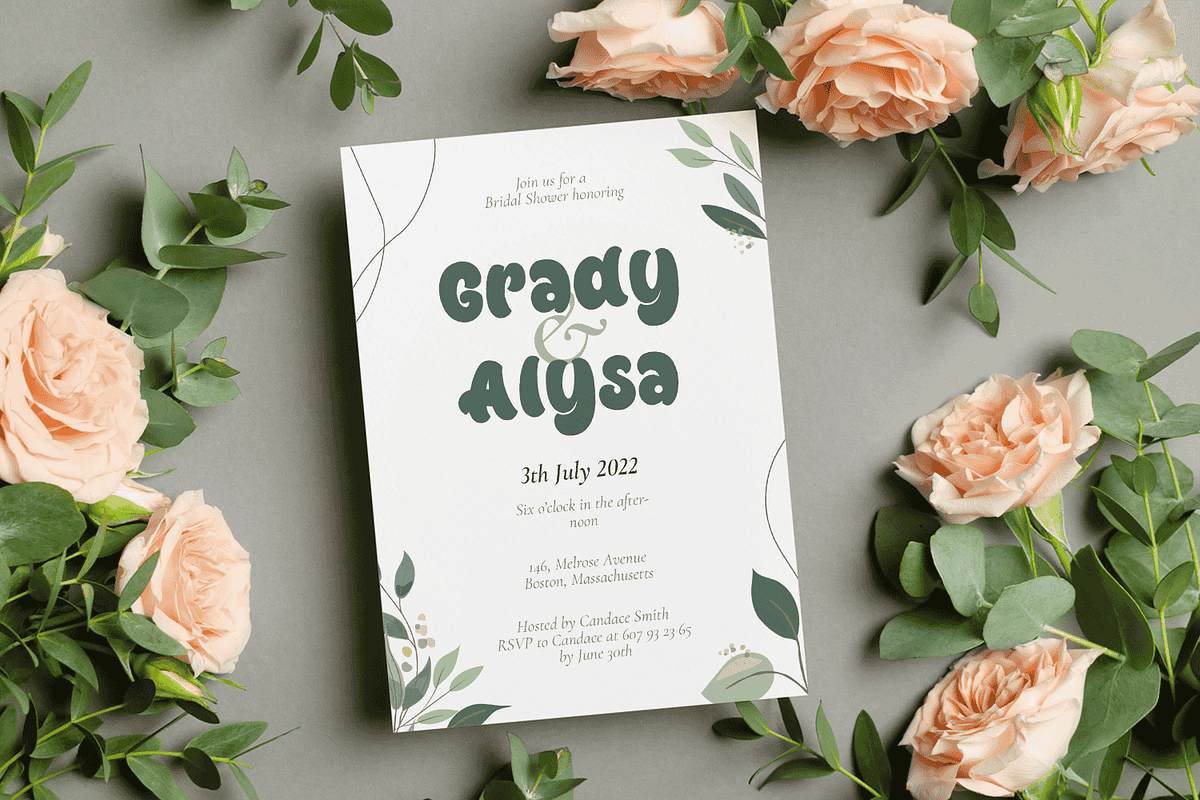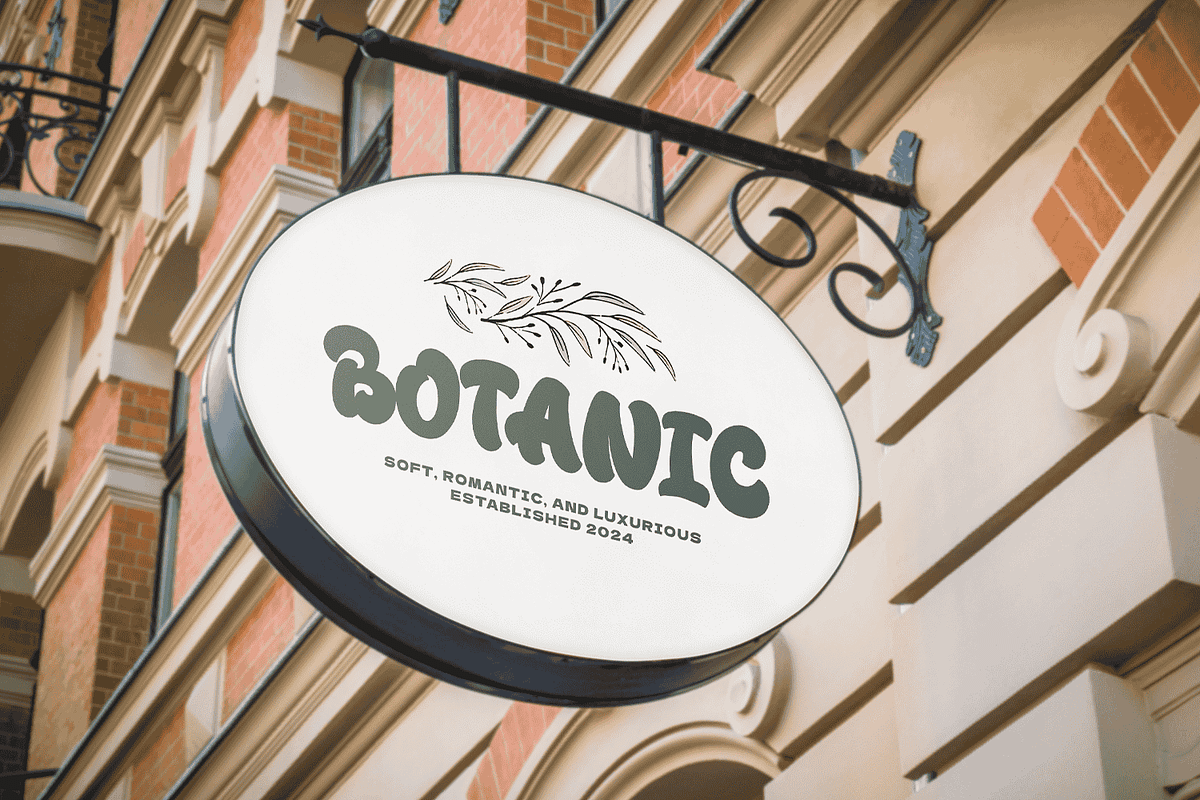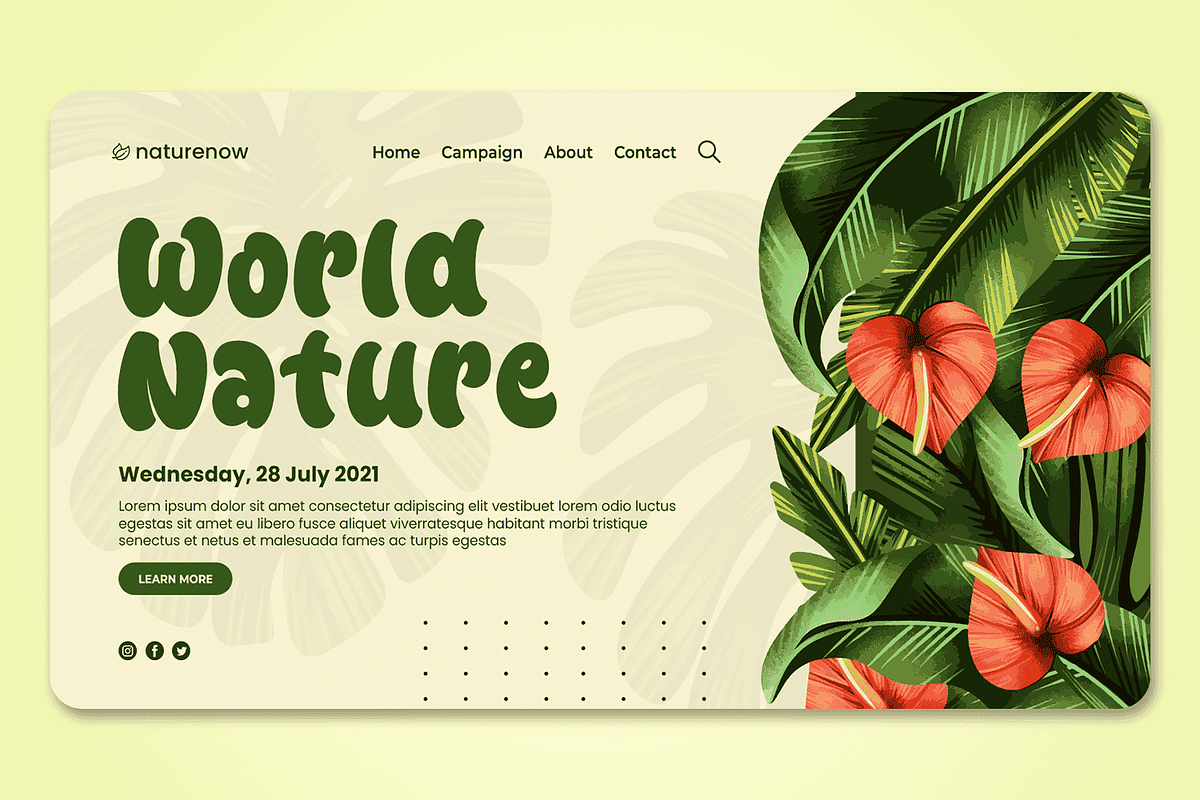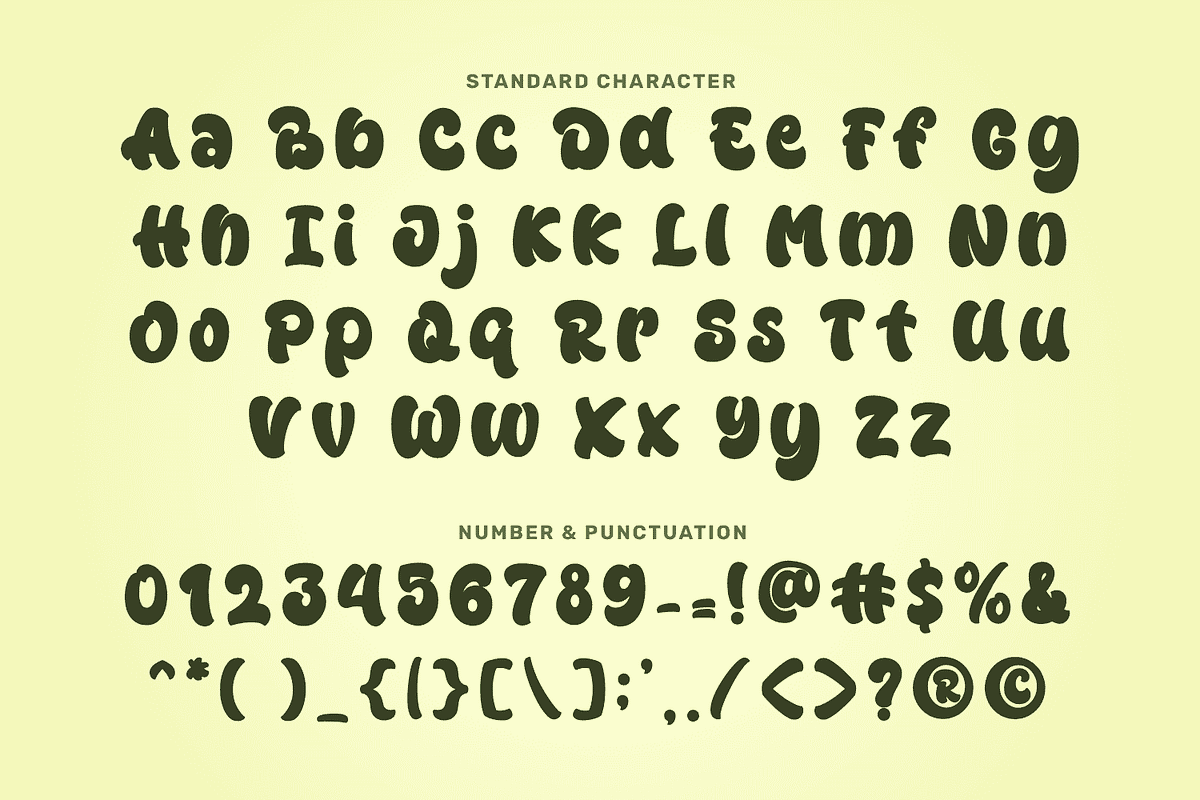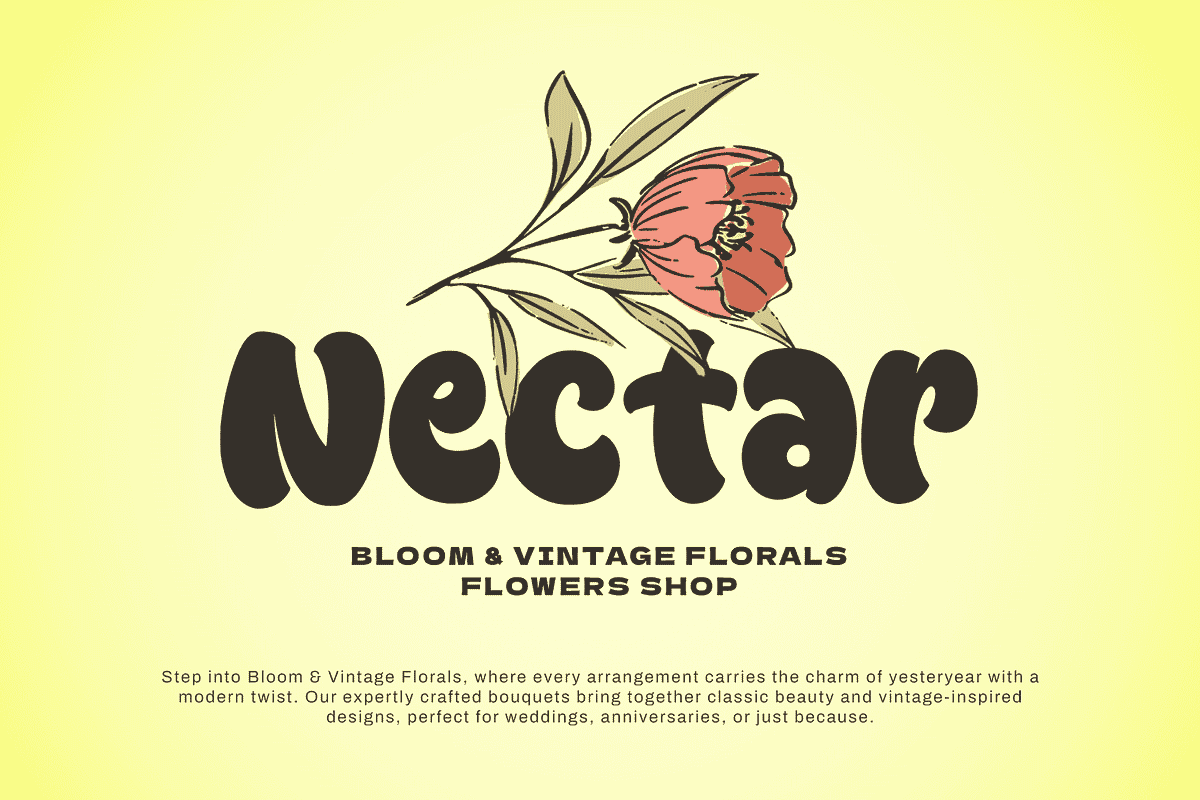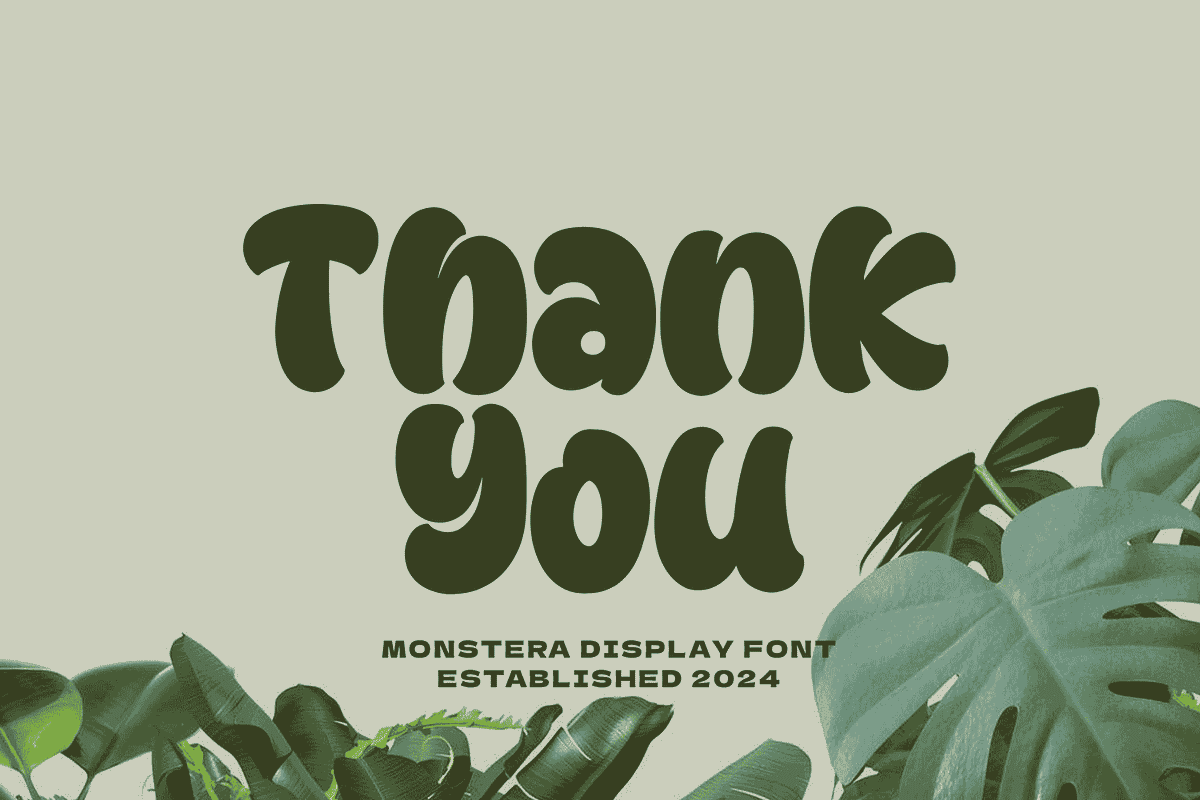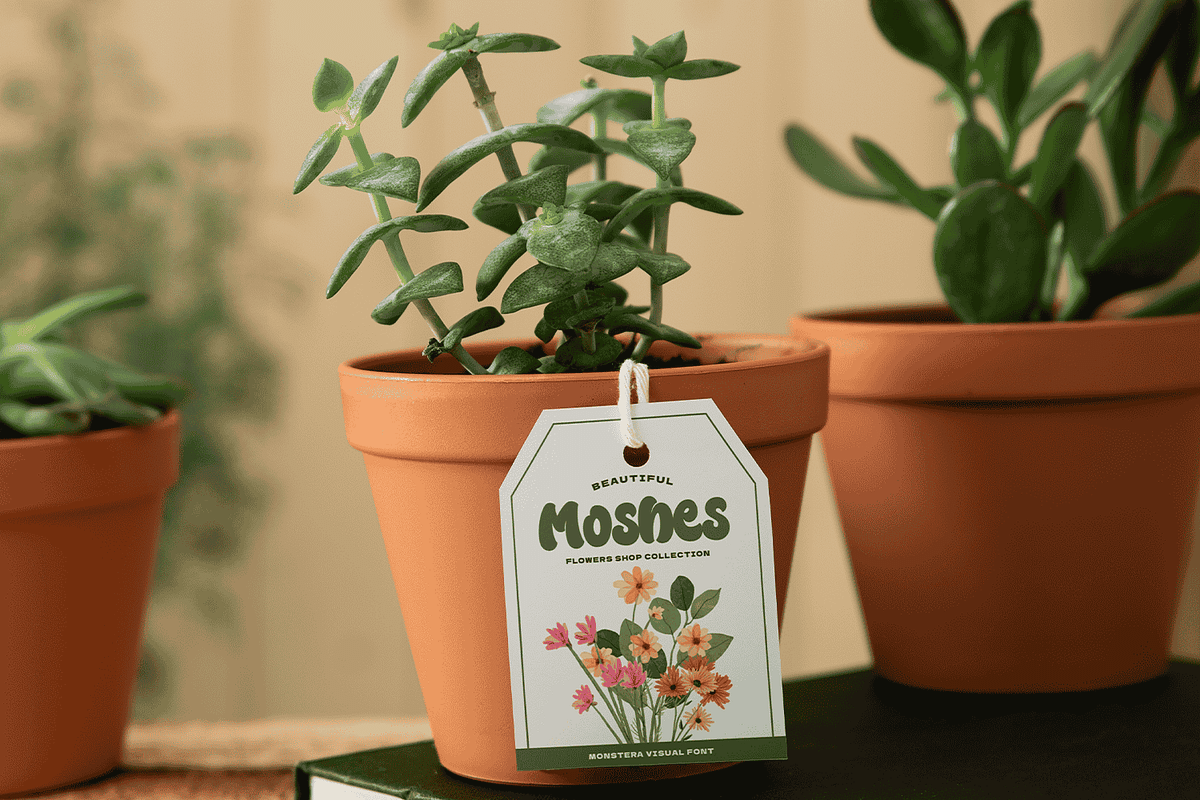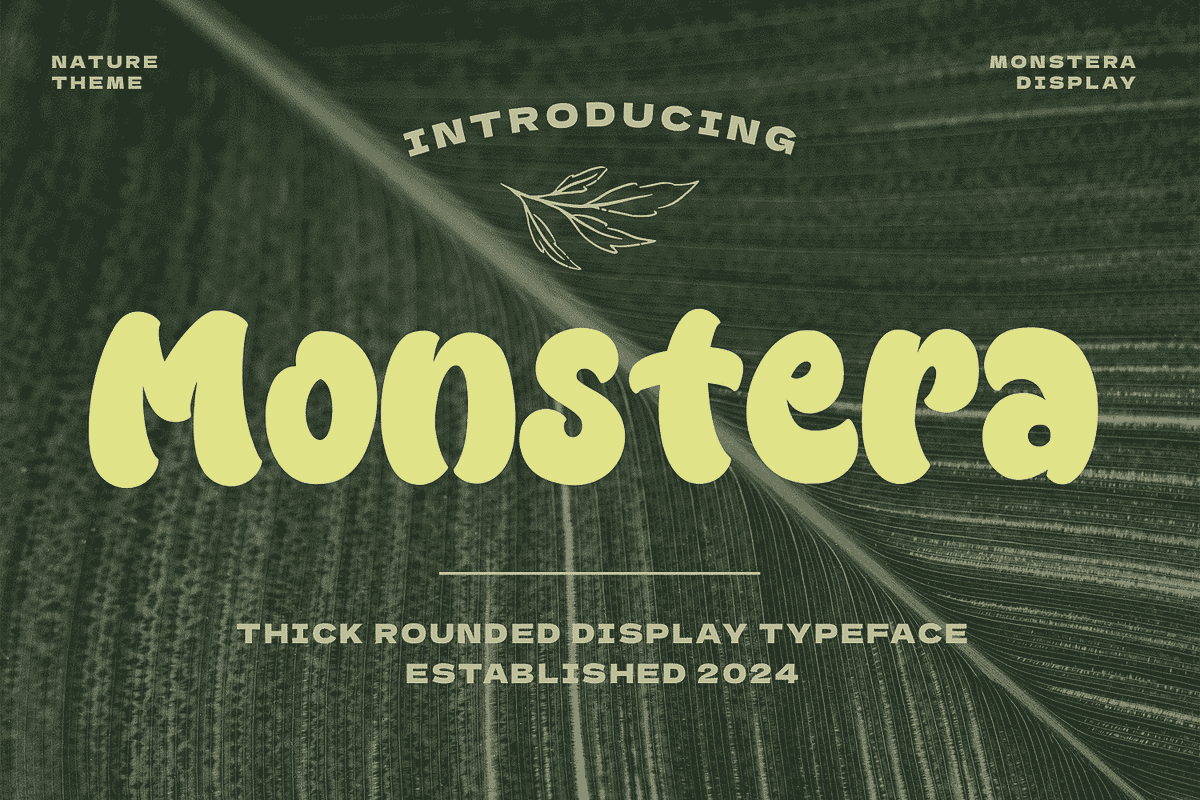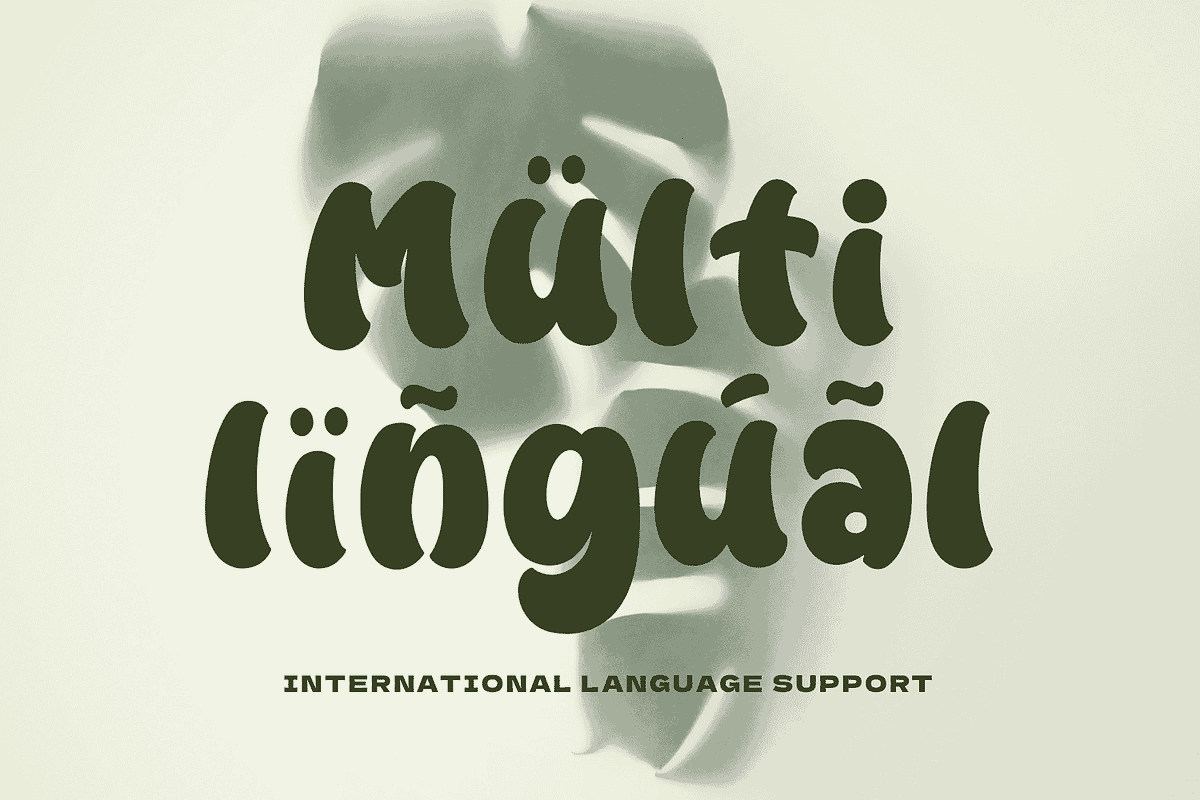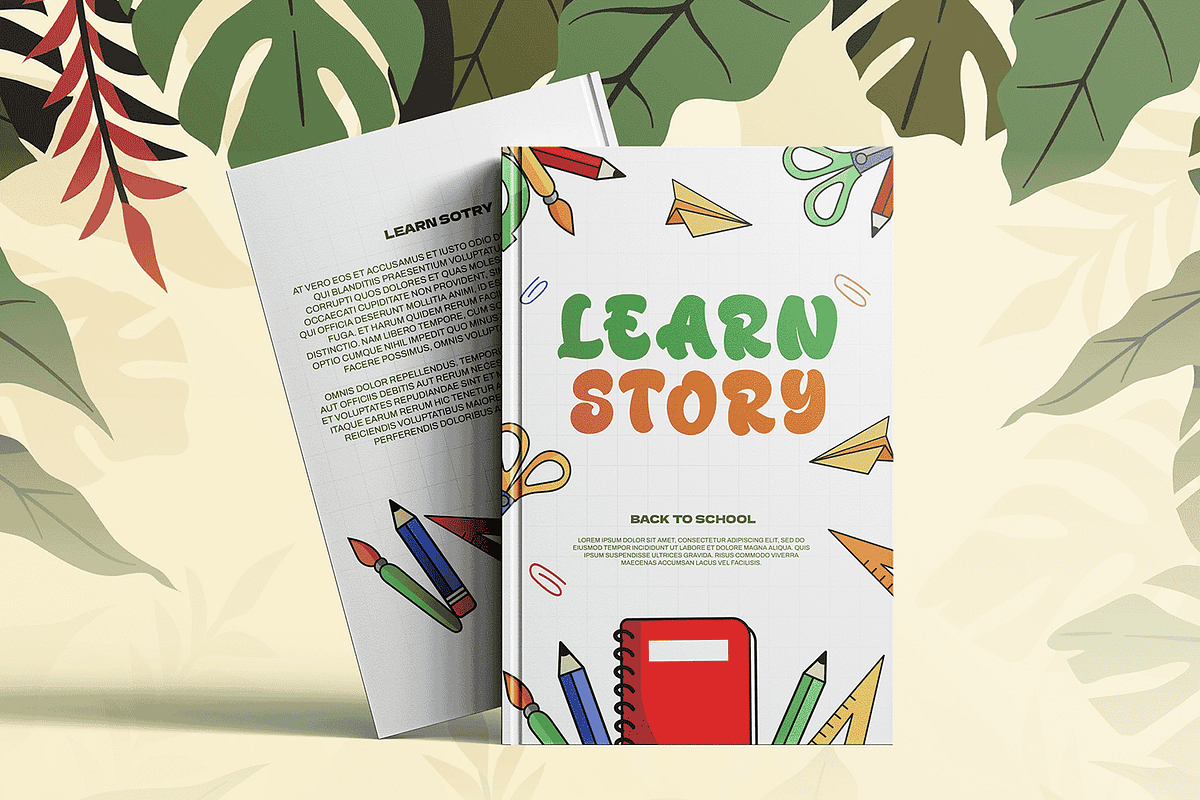
MONSTERA
Monstera is a bold and playful display font designed to bring fun and excitement to your projects. With its thick and vibrant letterforms, it’s perfect for designs that need to stand out, whether you’re creating game titles, travel banners, or promotional materials. The lively and energetic style of Monstera makes it ideal for projects focused on adventure, nature, and outdoor fun.
Inspired by the lush and tropical vibe of its namesake, Monstera captures the essence of the wild. It’s a great choice for themes related to kids, zoos, parks, safari parks, national parks, and any design that embraces the beauty of nature. Its bold and fun characters evoke a sense of curiosity and exploration, making it perfect for projects aimed at younger audiences or adventurous souls.
This versatile font works well in both print and digital formats, making it suitable for everything from travel brochures and kids’ party invitations to outdoor event signage. Monstera's playful nature and bold appearance ensure that your message is not only readable but also engaging and memorable, adding a vibrant touch to any design.
- Standard & Multilingual glyphs.
- Fonts include multilingual support for; Afrikaans, Danish, Dutch, French, German, Indonesian, Irish, Italian, Norwegian, Portuguese, Scottish, Spanish, Swedish, Swiss, etc.